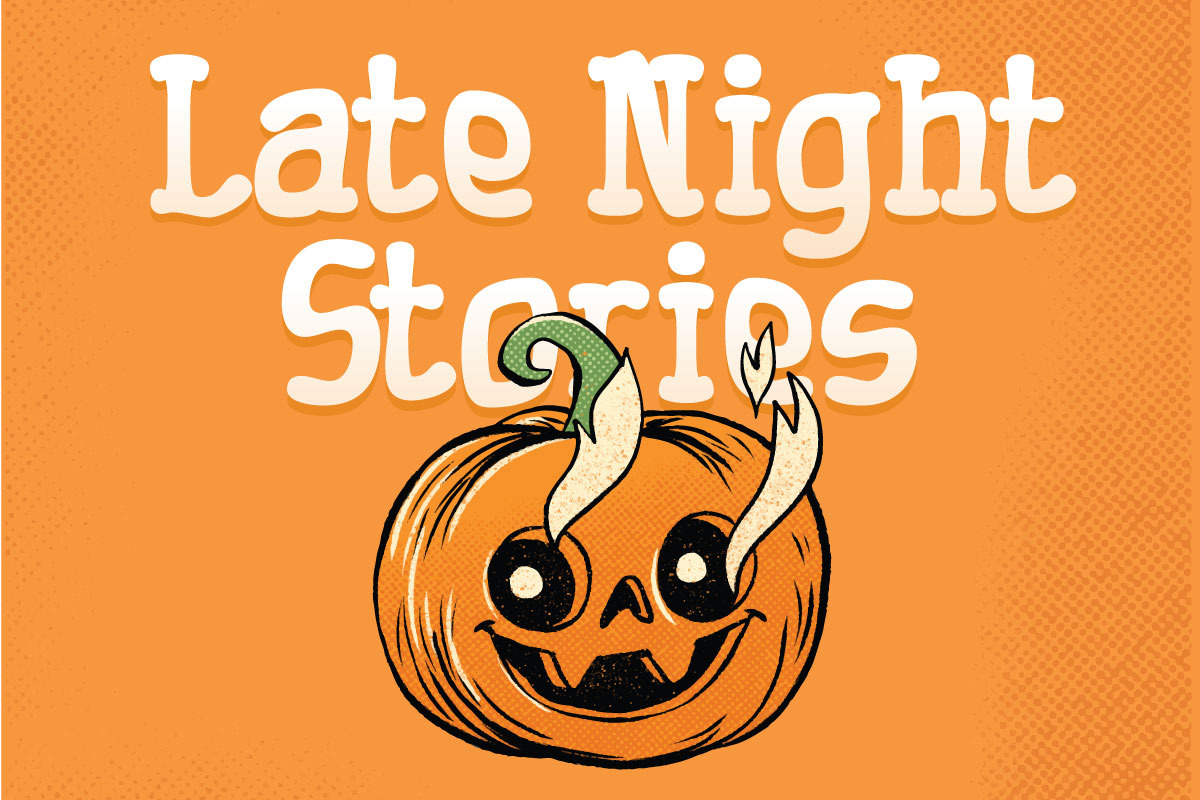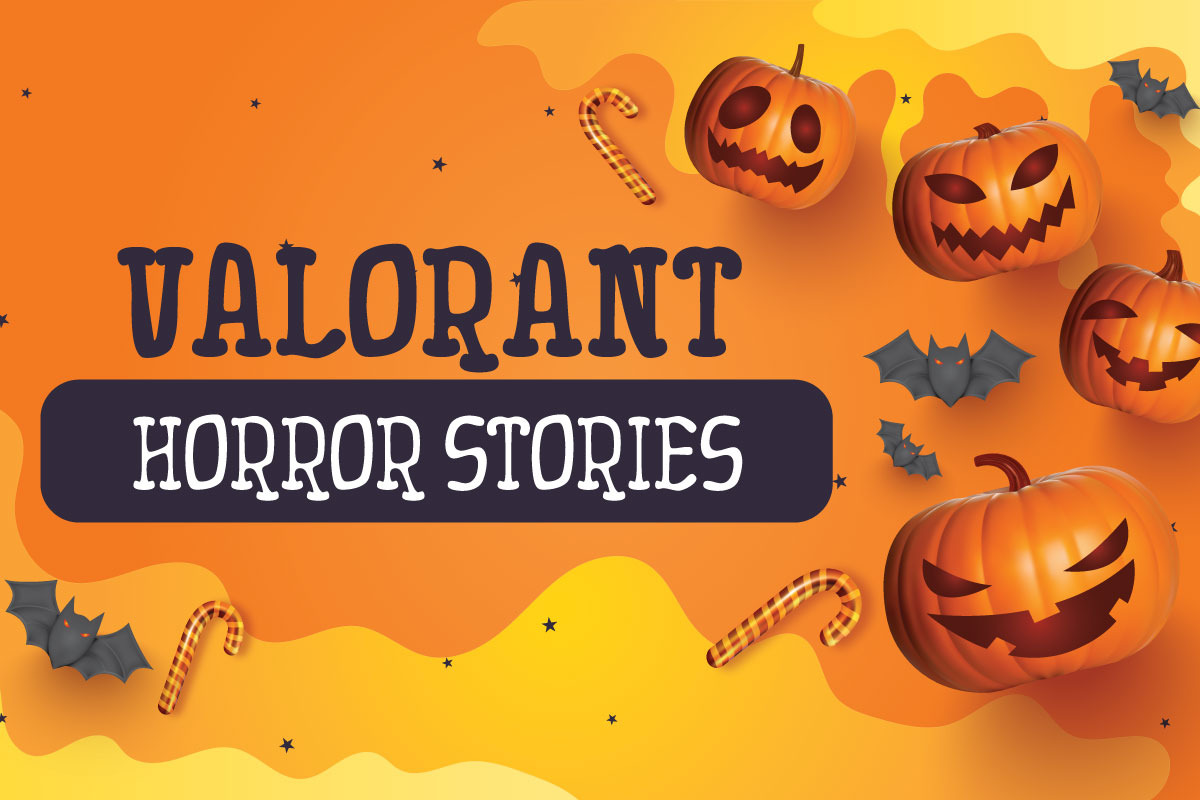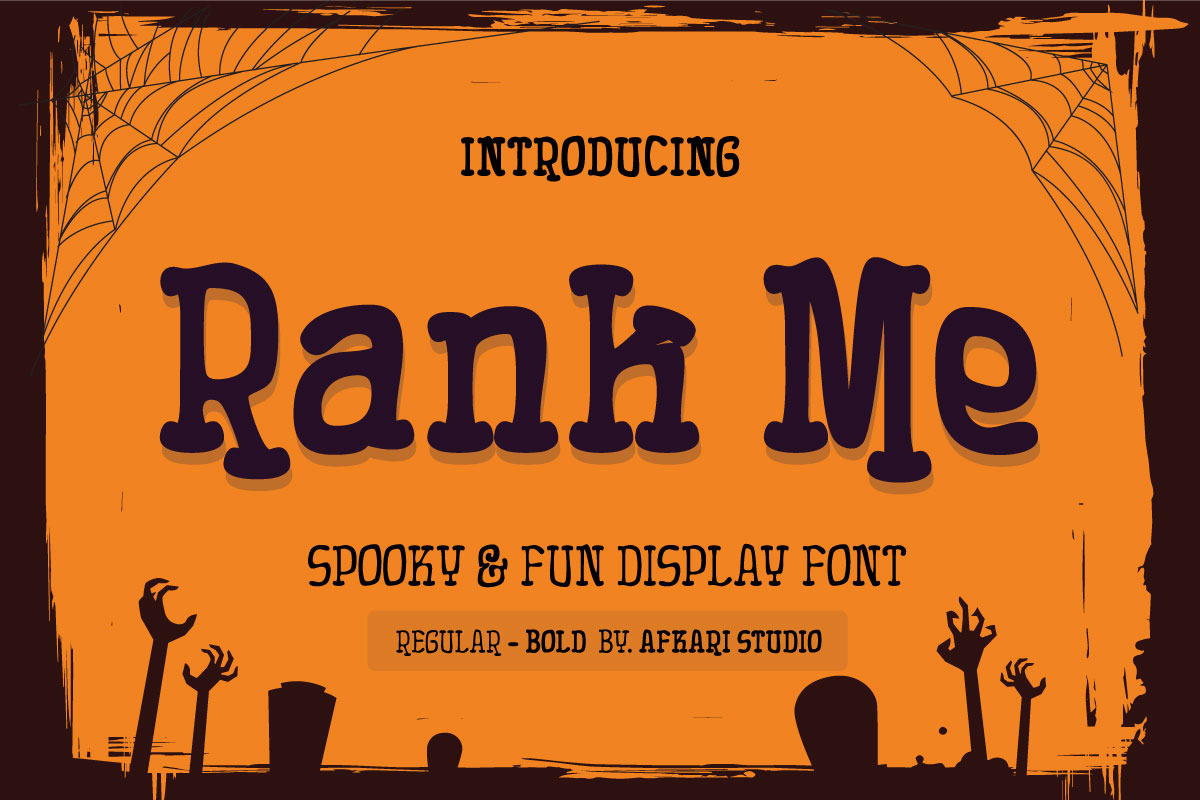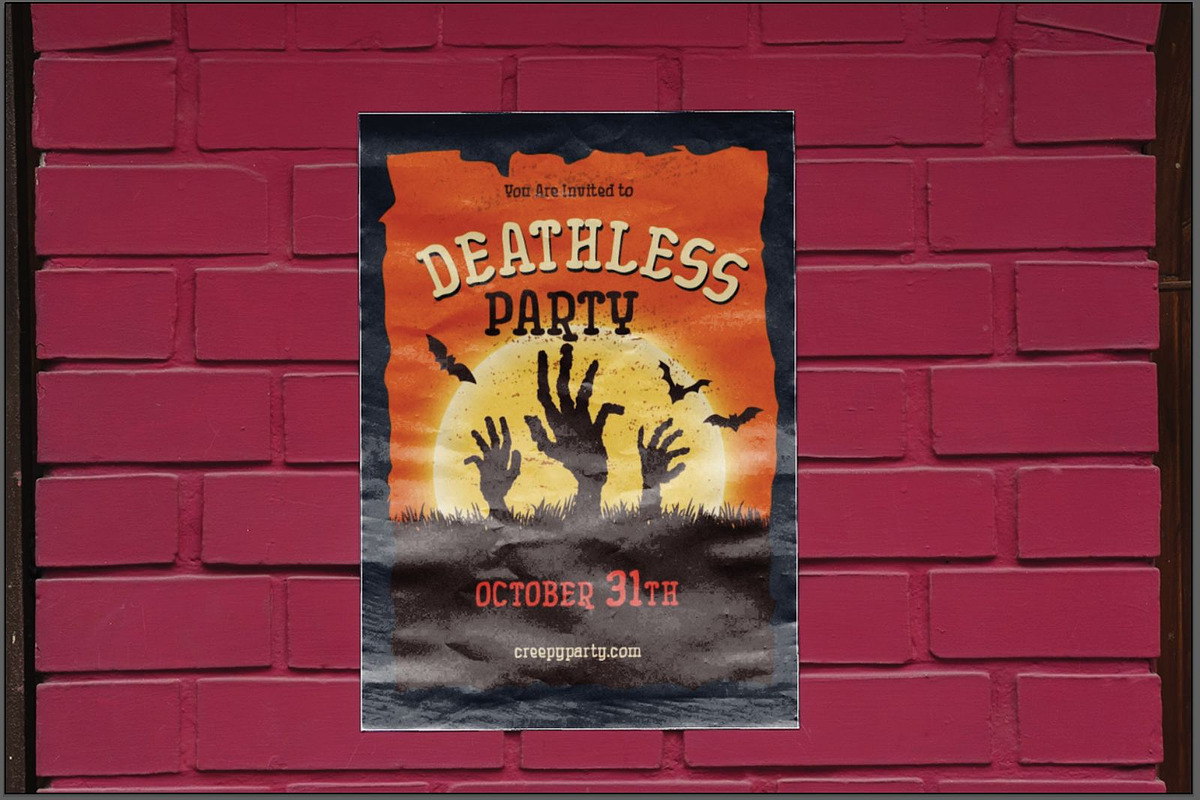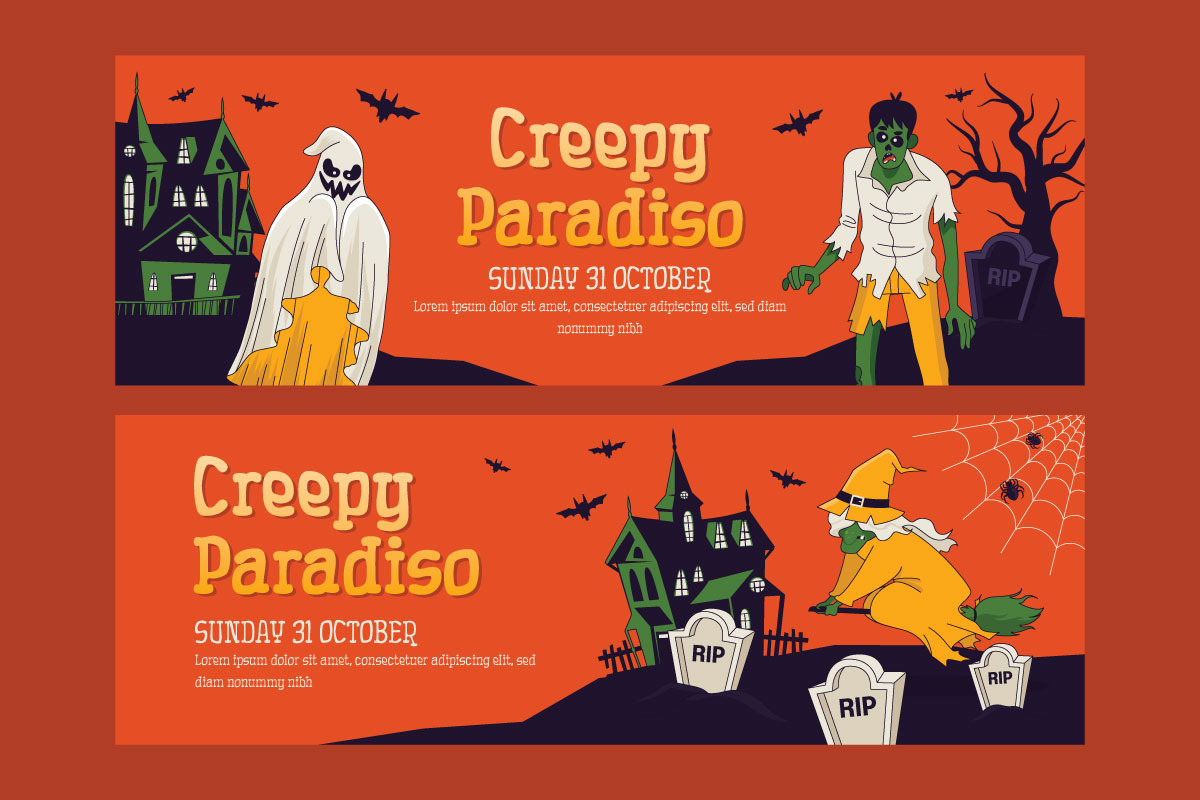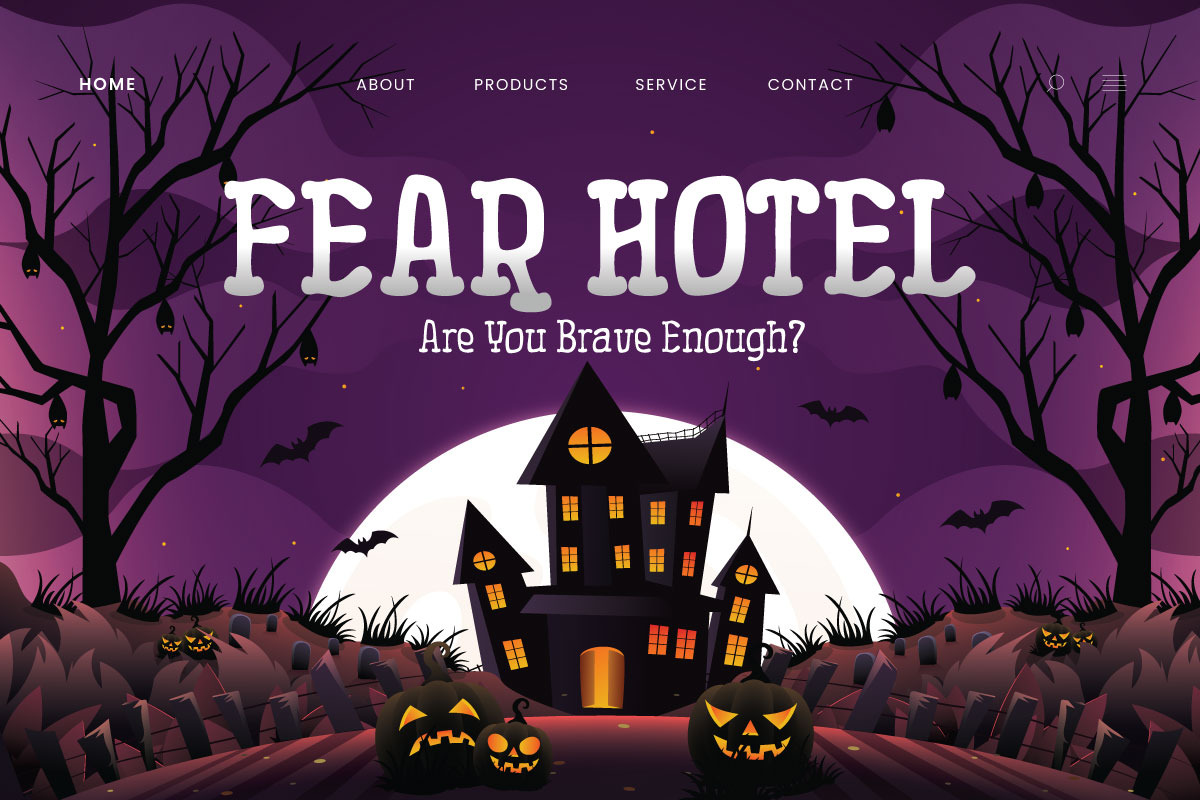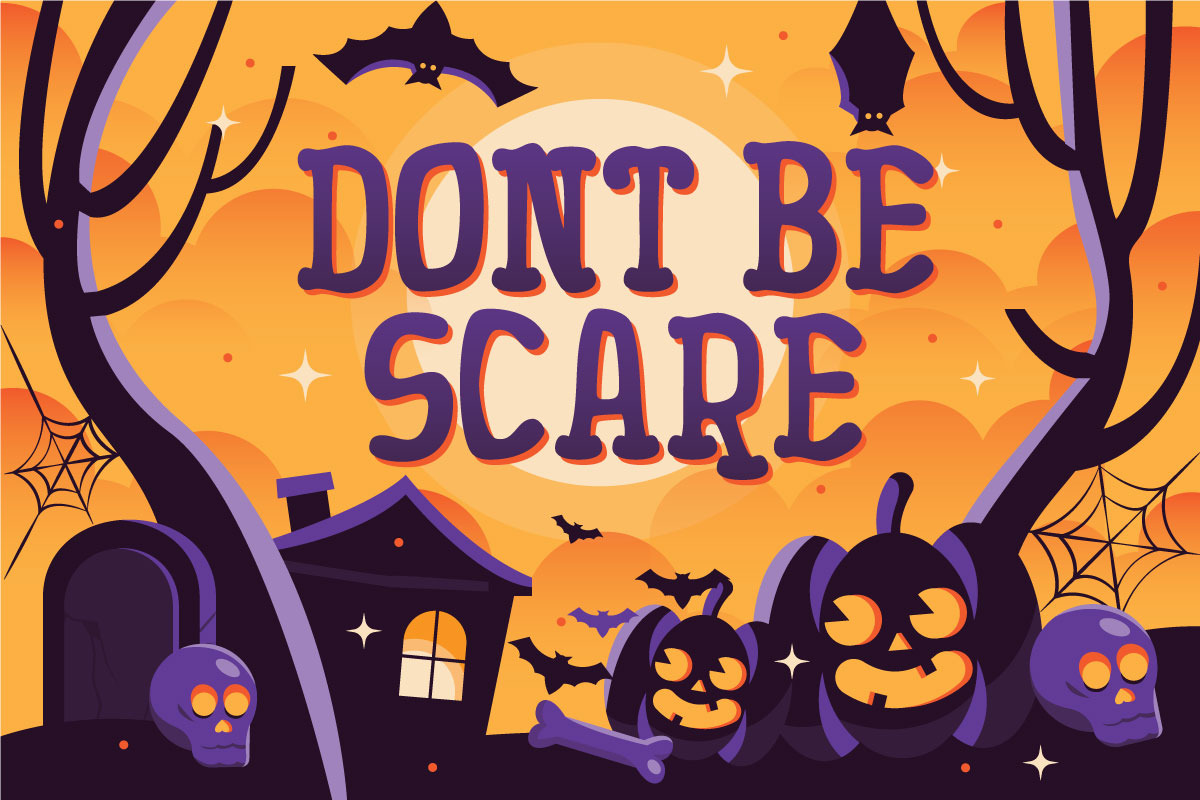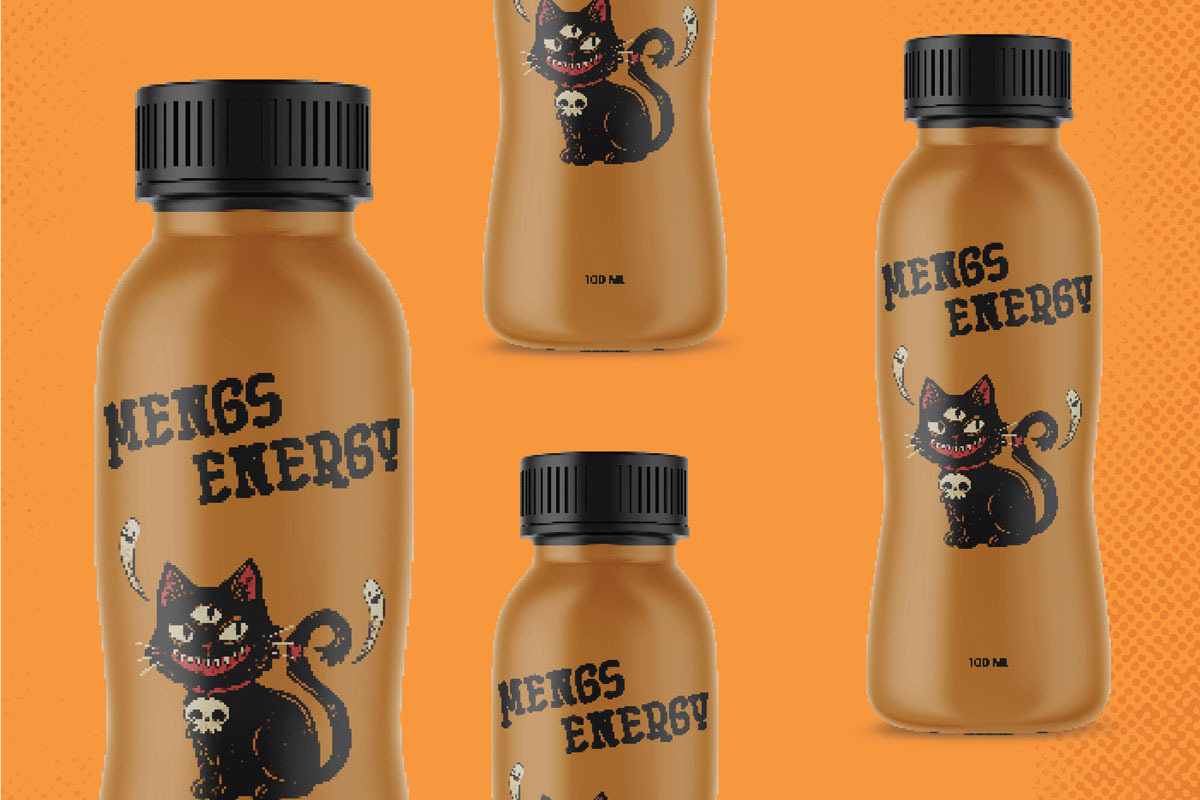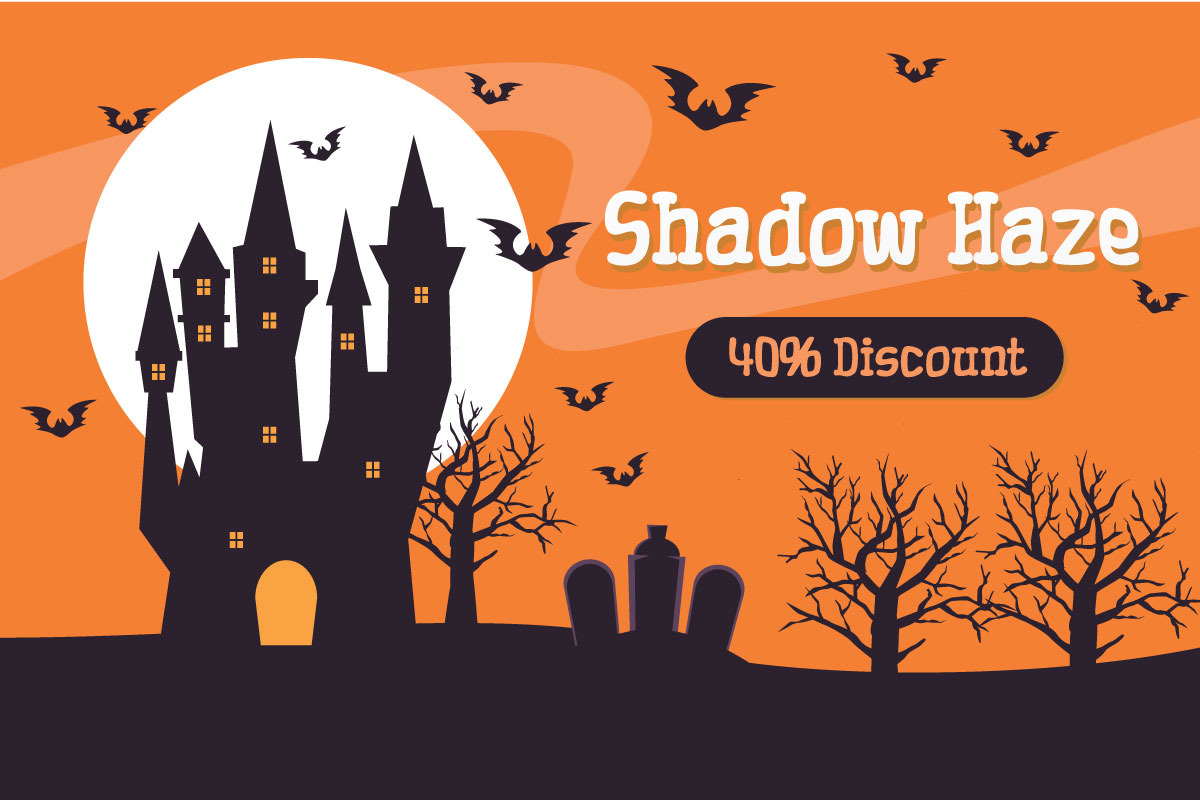
Rank Me - Spooky & Fun Display Font
Rank Me is a lively and engaging font designed to bring fun and energy to your creative projects. With its bold shapes and playful curves, this typeface is perfect for headlines, posters, packaging, branding, and children’s designs. Whether you're creating cheerful invitations or eye-catching social media graphics, Rank Me ensures your message stands out with its vibrant personality.
Highlighted Features:
- Complete set of uppercase and lowercase letters, numerals, and punctuation marks
- Unique alternates and ligatures for enhanced character variation
- Multilingual support including characters such as ä, ö, ü, Ä, Ö, Ü, ß, ¿, and ¡
Unleash the joy of design with Rank Me and elevate your creations to a new level of fun!